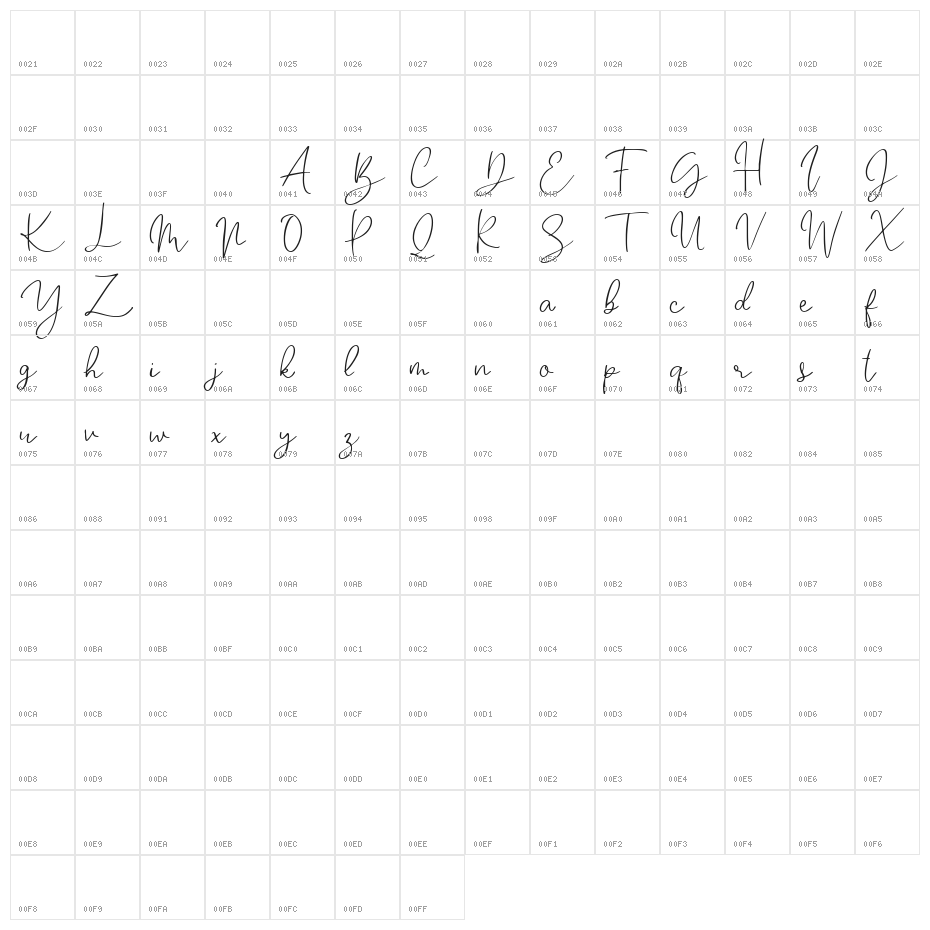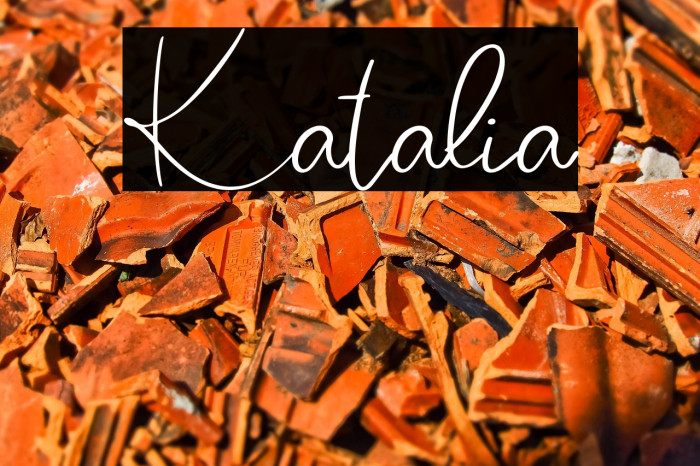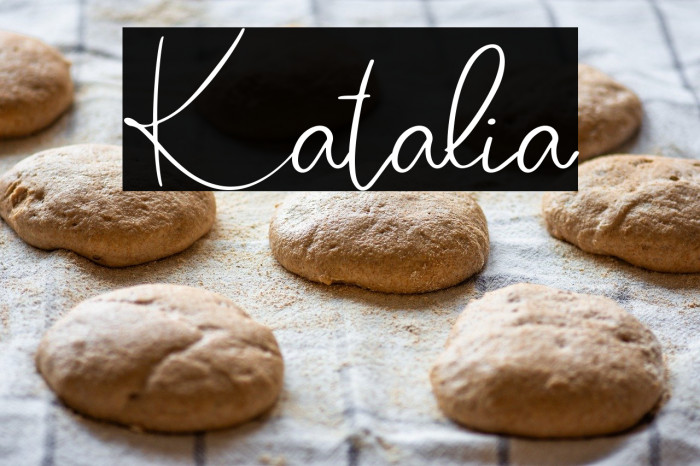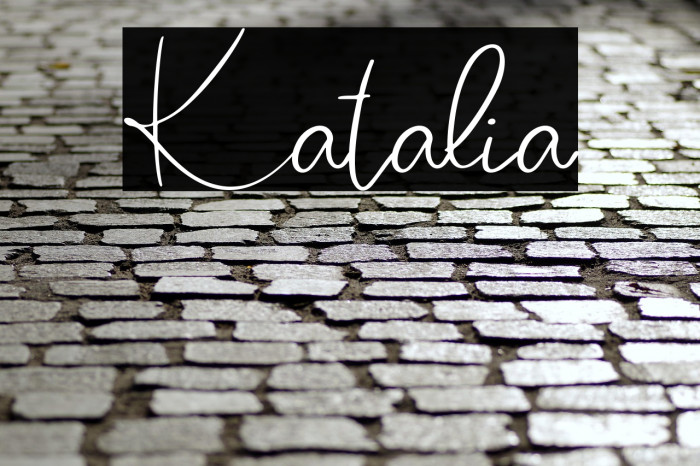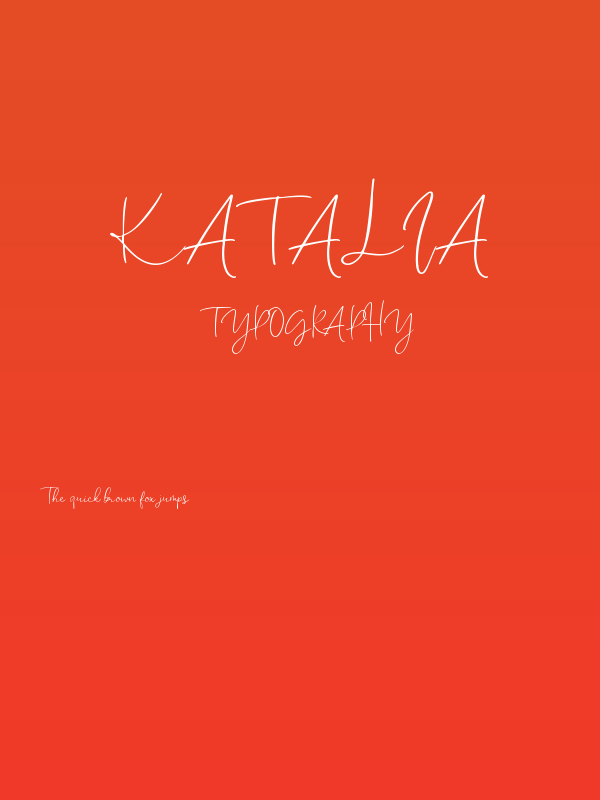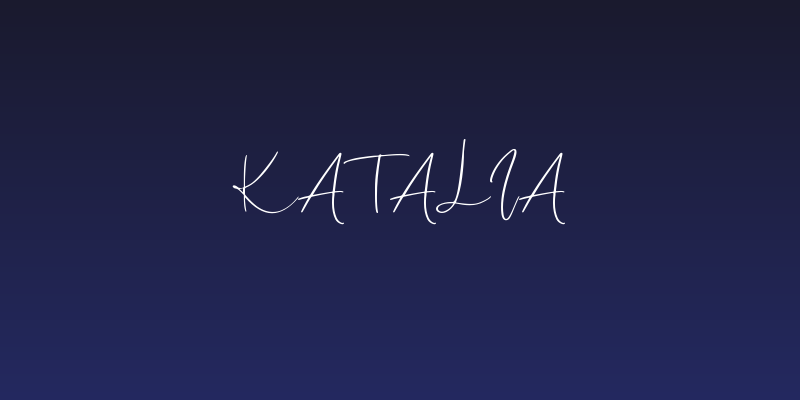
Katalia Font
Katalia Description
This font exudes a charming and fluid handwritten style, characterized by its elegant cursive letters. The uppercase letters are slightly more structured, maintaining a consistent height, while the lowercase letters flow seamlessly into one another, creating a natural and organic look. The strokes are smooth and continuous, with a slight variation in thickness that adds to the handwritten feel. This font is perfect for projects that require a personal touch, such as invitations, greeting cards, or branding materials that aim to convey warmth and approachability.
| Proposed Projects | Ideal for invitations, greeting cards, personal branding, and any project needing a warm, personal touch. |